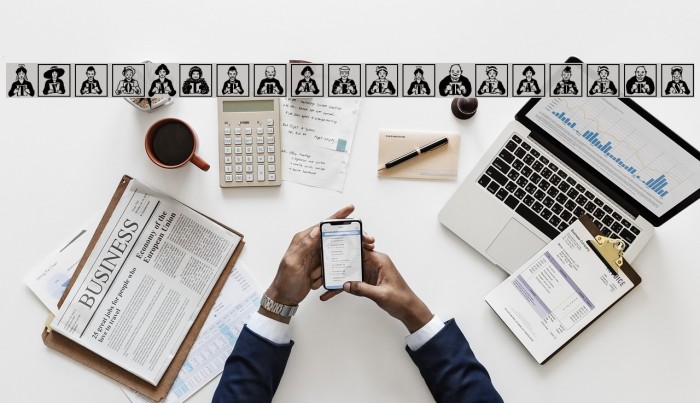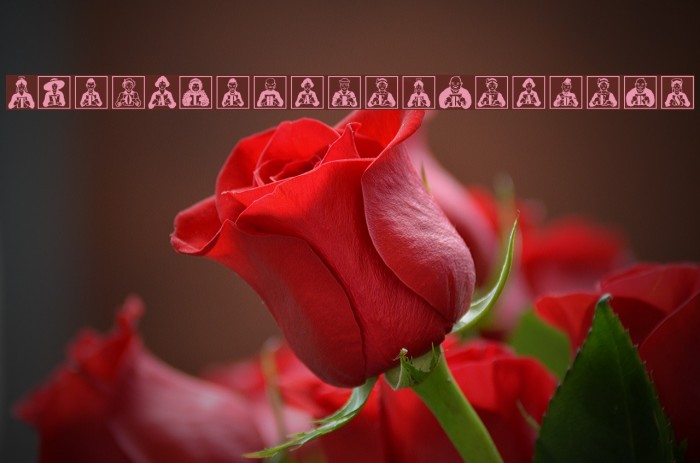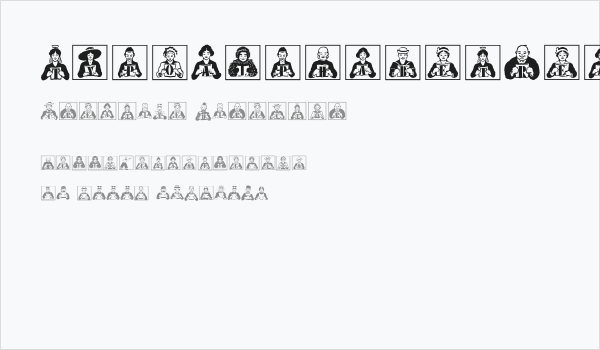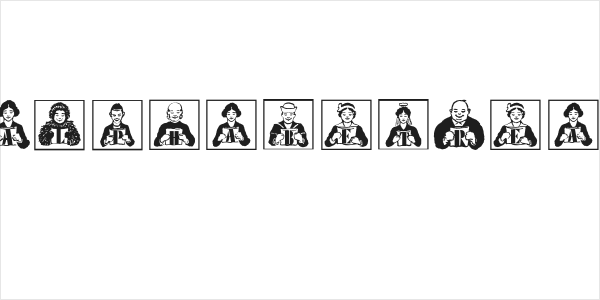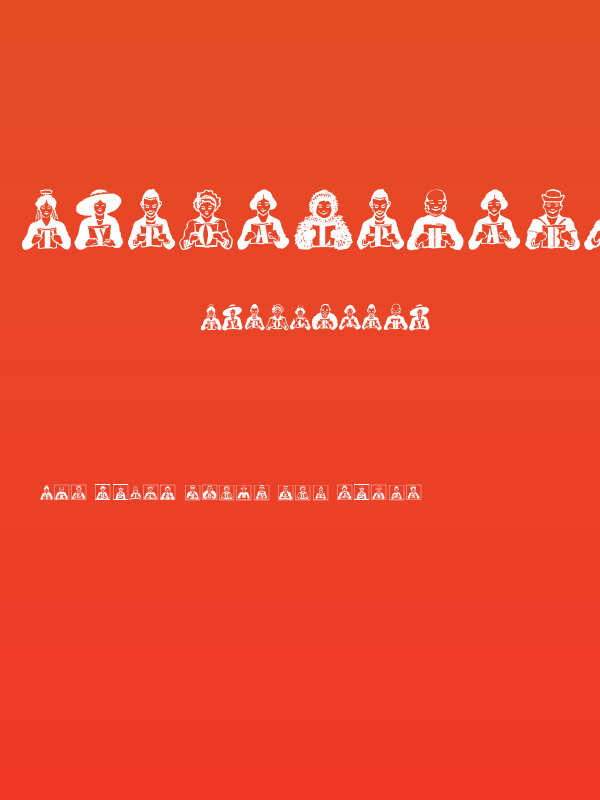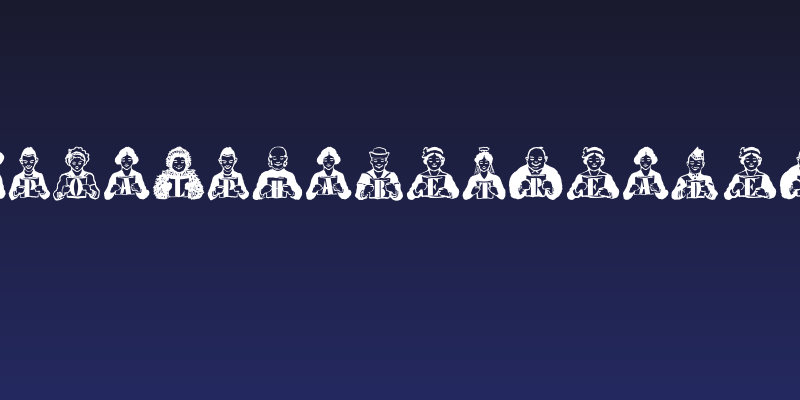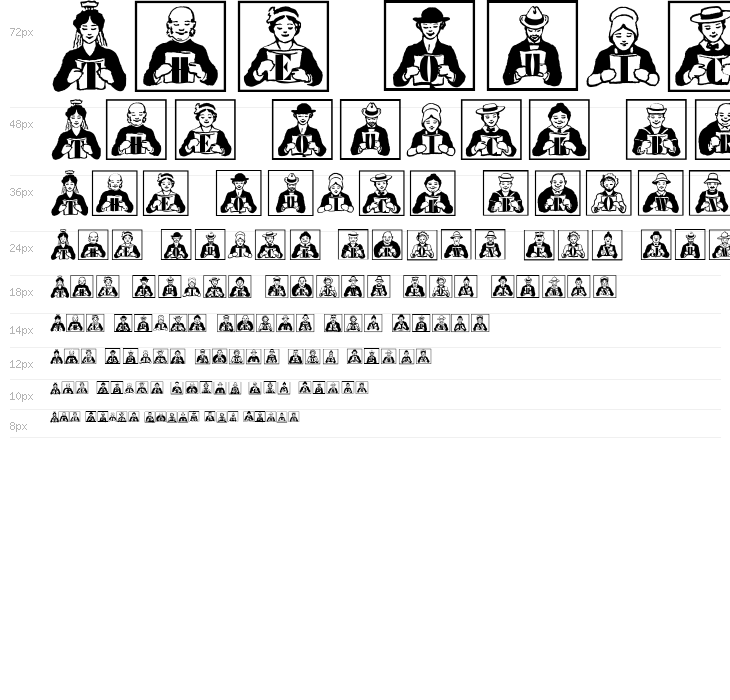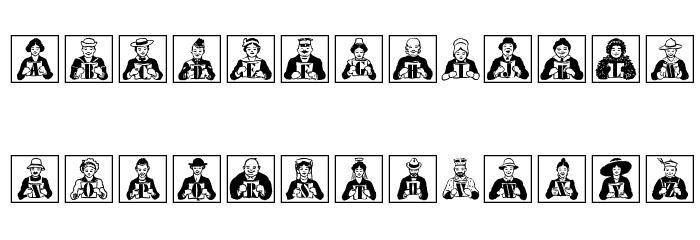
TypoAlphabetReaders Font
TypoAlphabetReaders Description
This unique typeface features characters depicted as people holding signs with letters. Each letter is represented by a different character, adding a playful and illustrative element to the text. The style is reminiscent of vintage illustrations, with bold outlines and detailed features. This decorative approach makes it ideal for creative projects where a whimsical and engaging visual is desired. The font's distinctiveness lies in its ability to convey personality and narrative through each character, making it a standout choice for thematic designs.
| Use Case | Logos, Posters, Creative Displays |
| Proposed Projects | Perfect for children's books, playful posters, themed event invitations, and unique branding materials. |